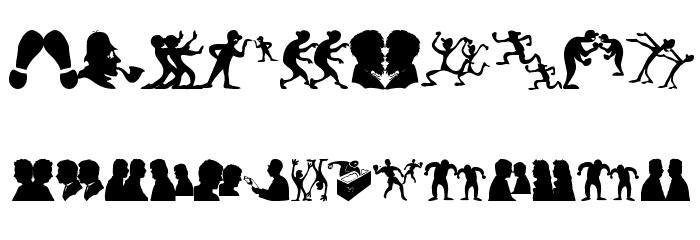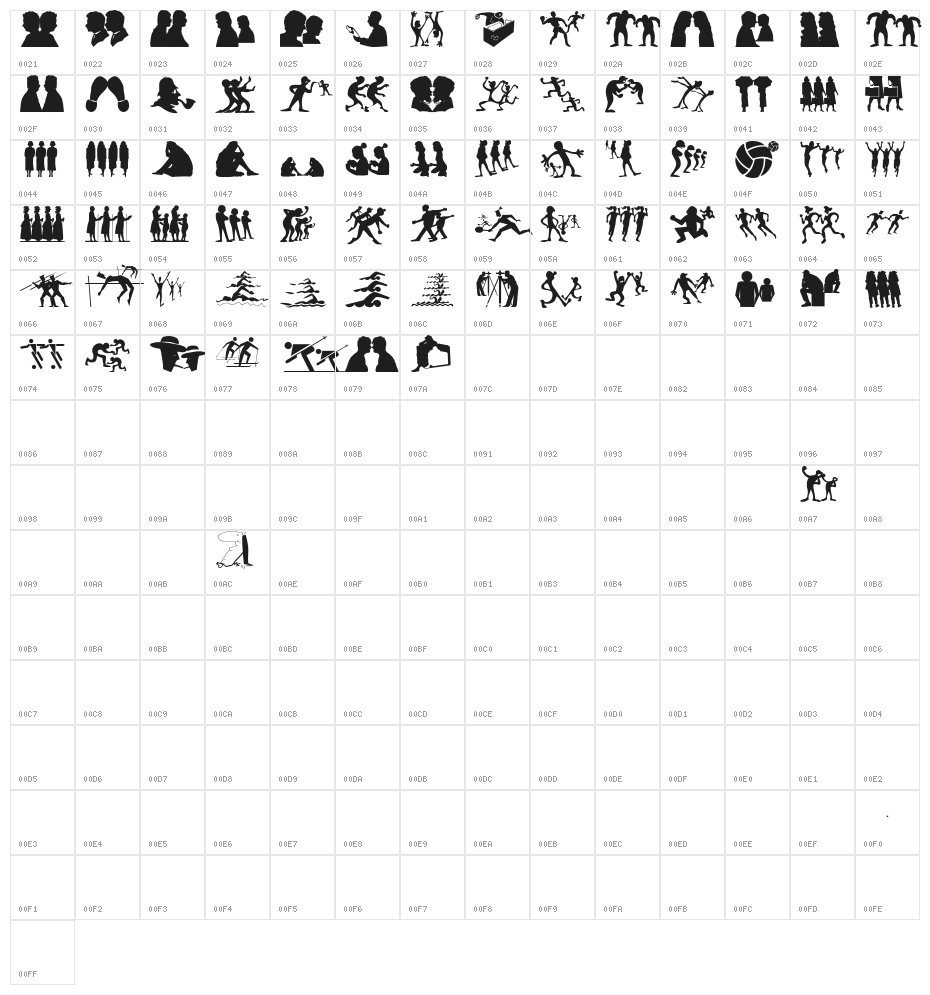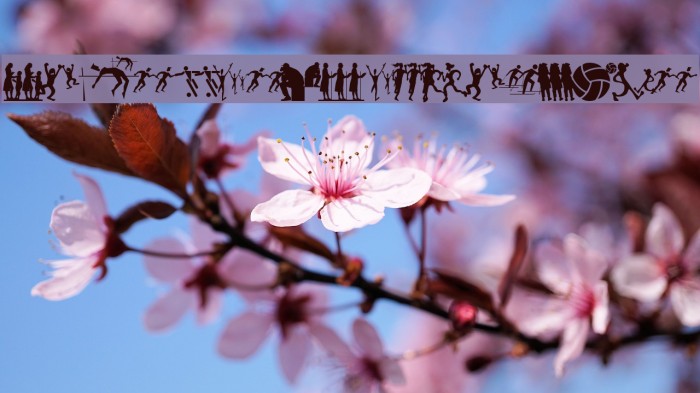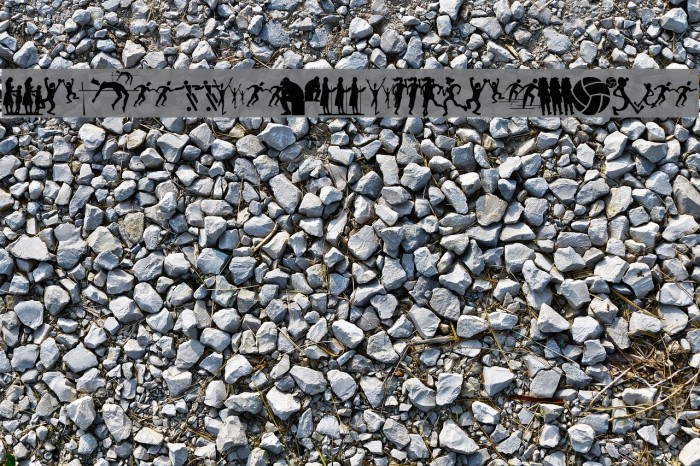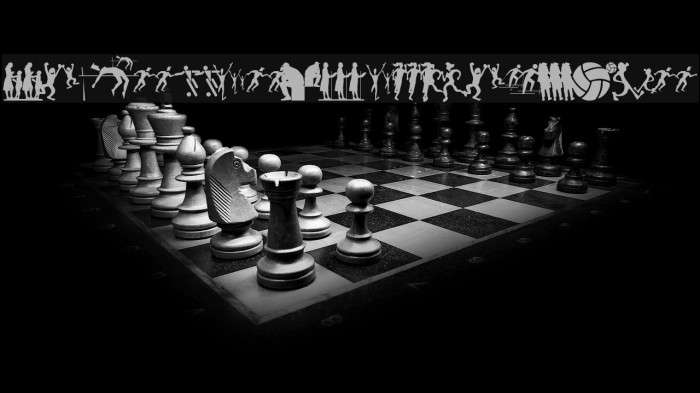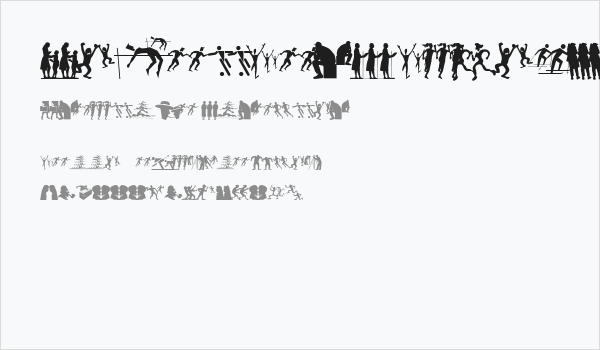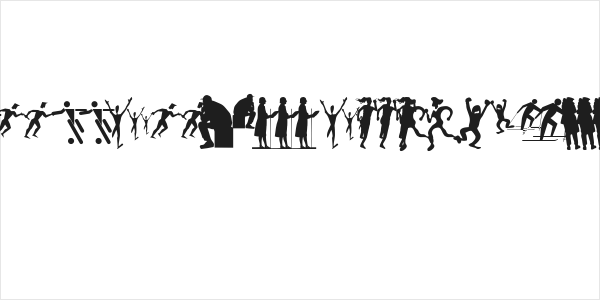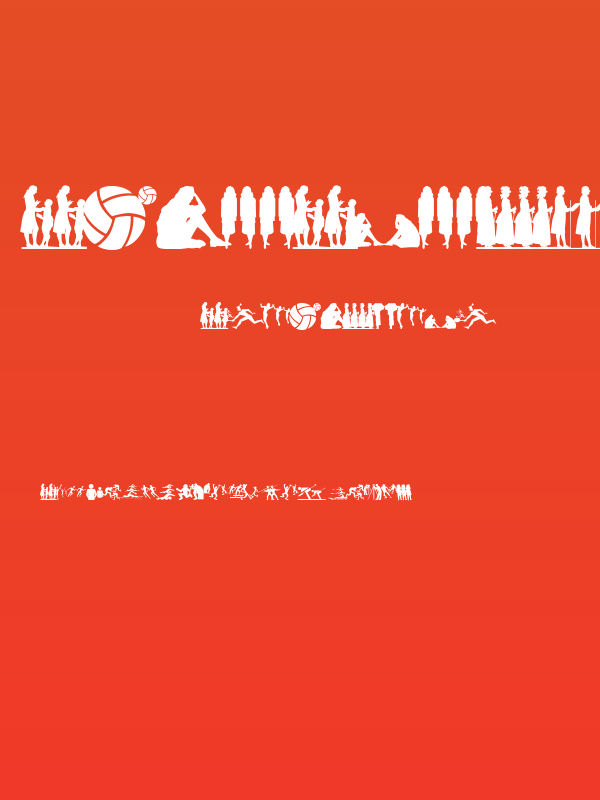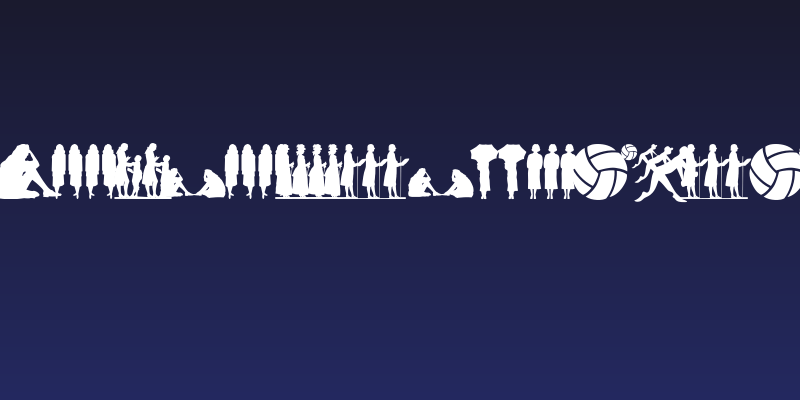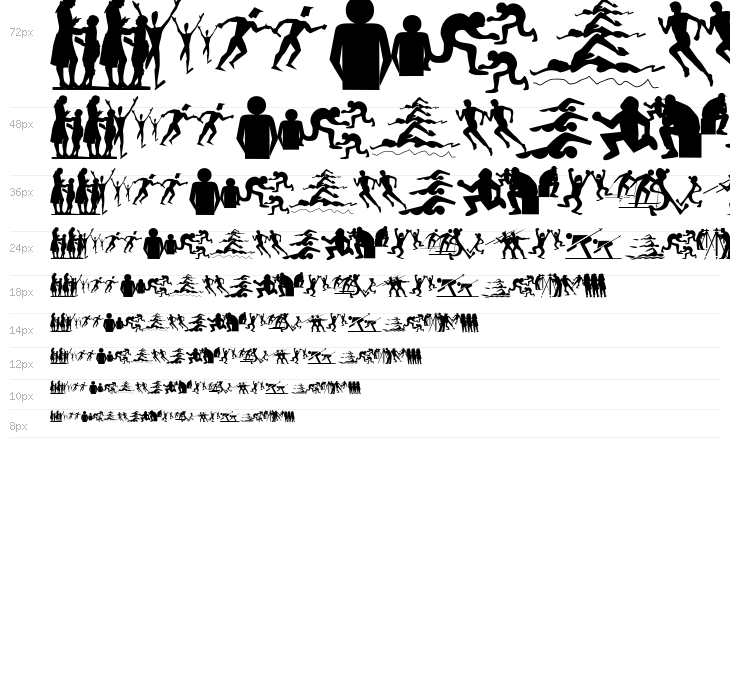
TogetherShadowsOne Font
TogetherShadowsOne Description
A highly decorative and illustrative font composed of silhouettes of people engaged in various activities, forming each character. The glyphs are complex, with each letter or symbol represented by a unique group or scene of human figures, making the font visually dynamic and narrative-driven.
| Overall Style | Decorative, Artistic, Playful |
| Use Case | Logos, Headlines, Posters, Artistic projects |
| Proposed Projects | Event posters, social campaigns, educational materials, creative branding, book covers, and art projects. |